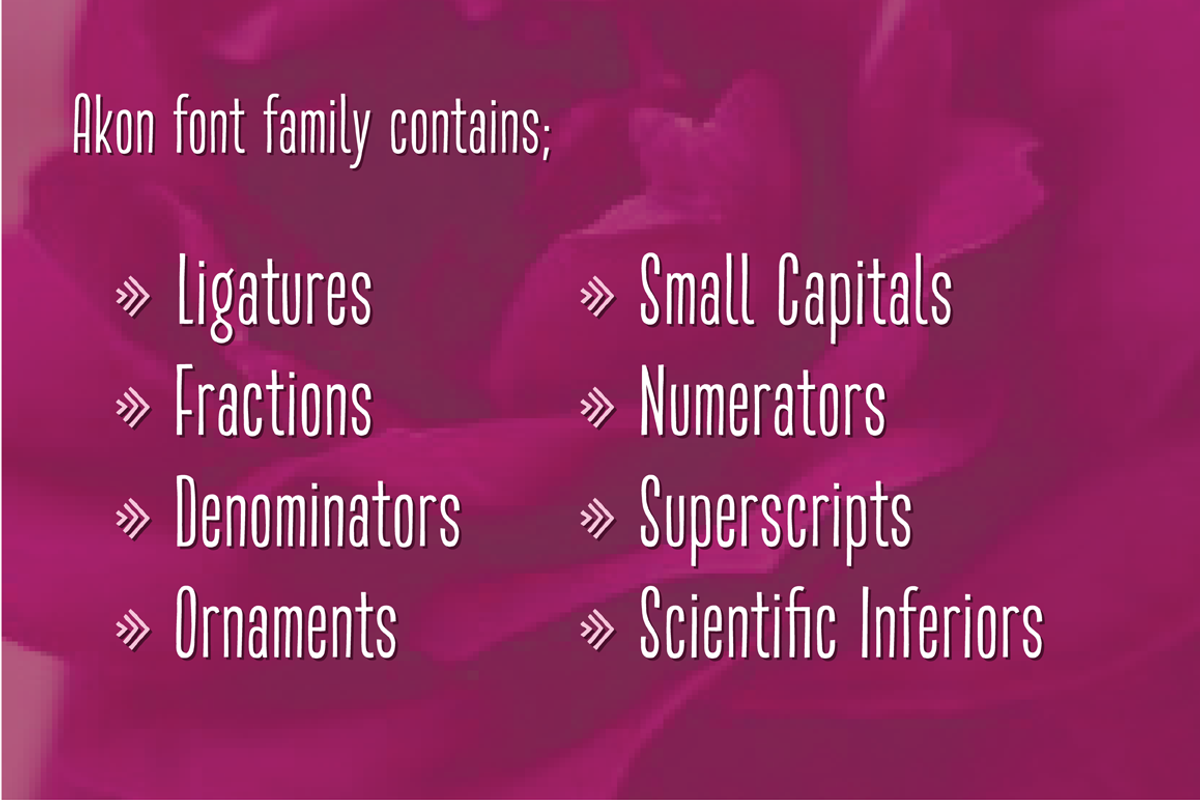
Akon Font Family
Akon Font Family by Ahmet Altun is a font selected for branding, posters, packaging, typography.
- The Akon Font Family has a few ornaments and stylistic alternates,ligatures,small capitals,Scientific Inferiors and so.
- Akon Regular
- Akon Bold
Why Akon Font Family is worth a look
Akon Font Family by Ahmet Altun fits naturally into Branding, posters, packaging, typography.